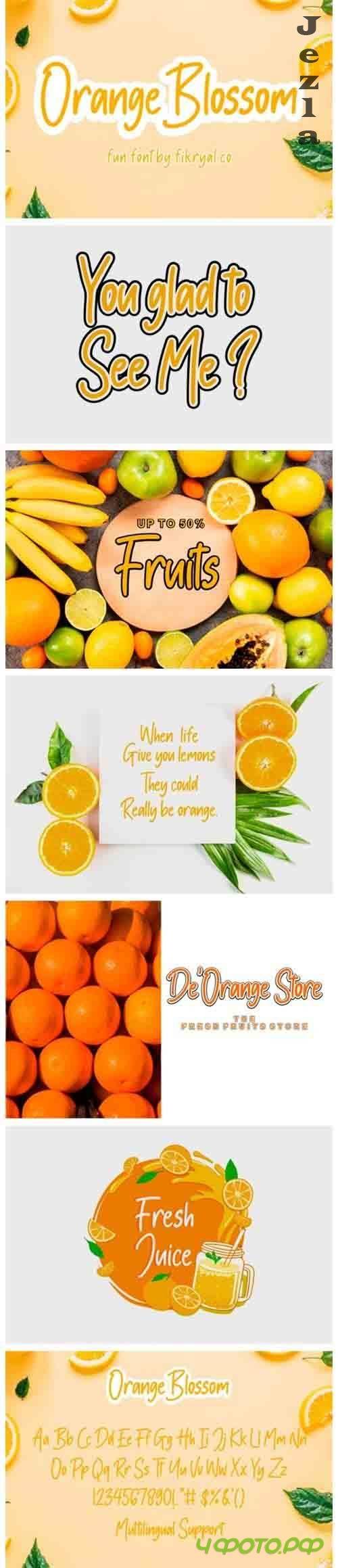
Orange Blossom Font
Orange Blossom embodies fun, quirkiness and authenticity. This enchanting display font will turn any creative idea into a true standout.
It will elevate a wide range of design projects to the highest level, be it branding, headings, wedding designs, invitations, signatures, logos, labels, and much more!